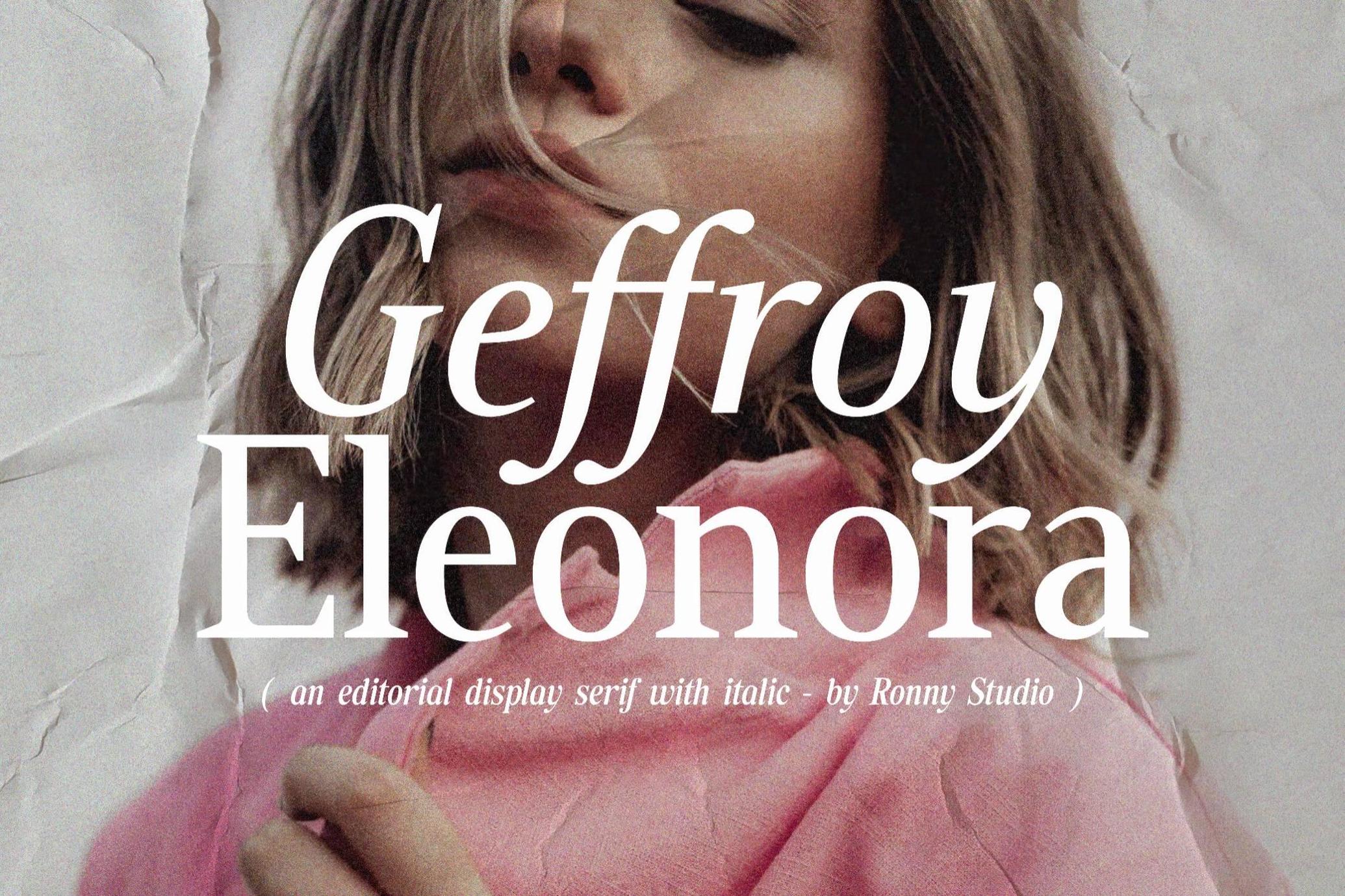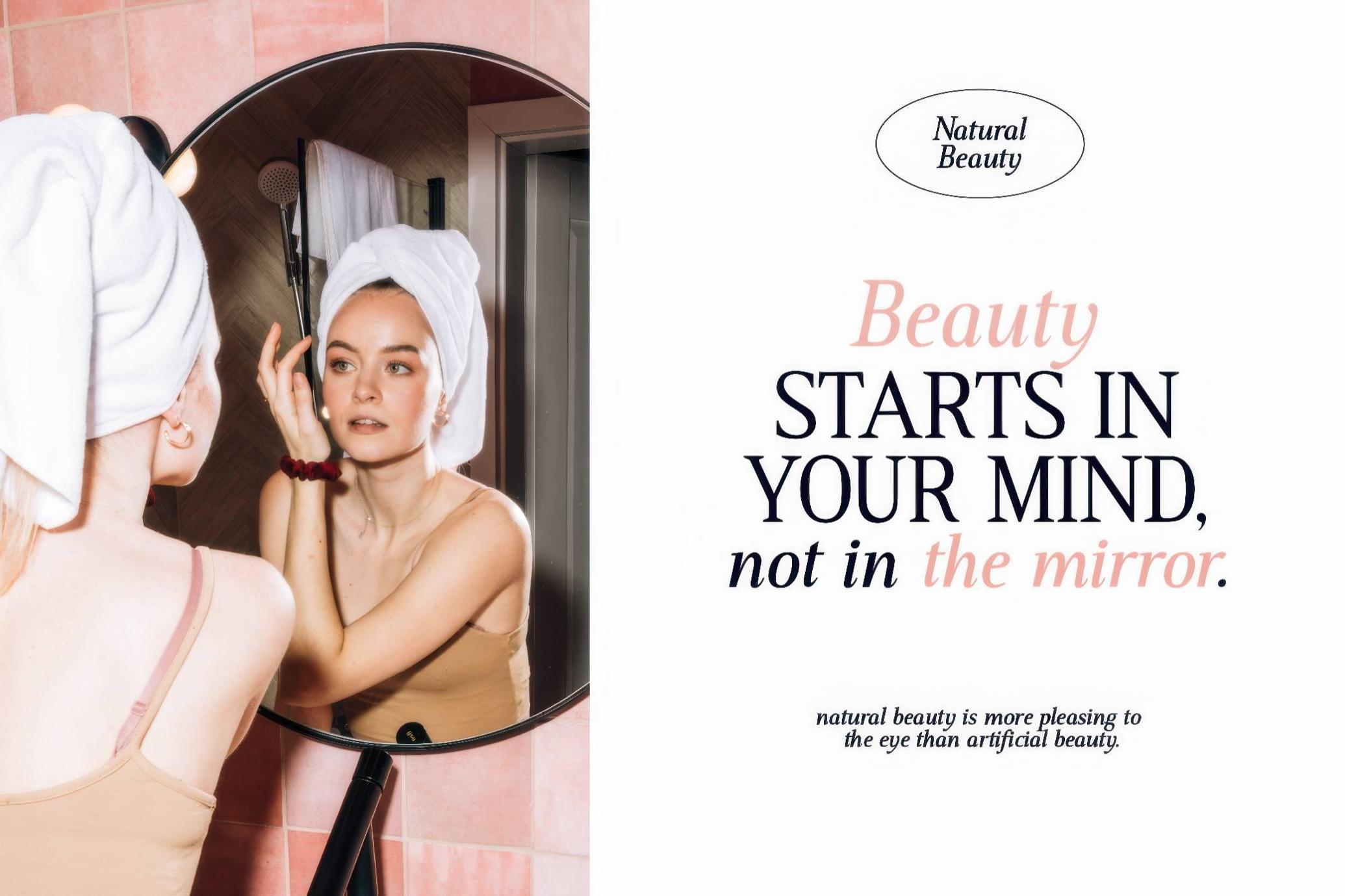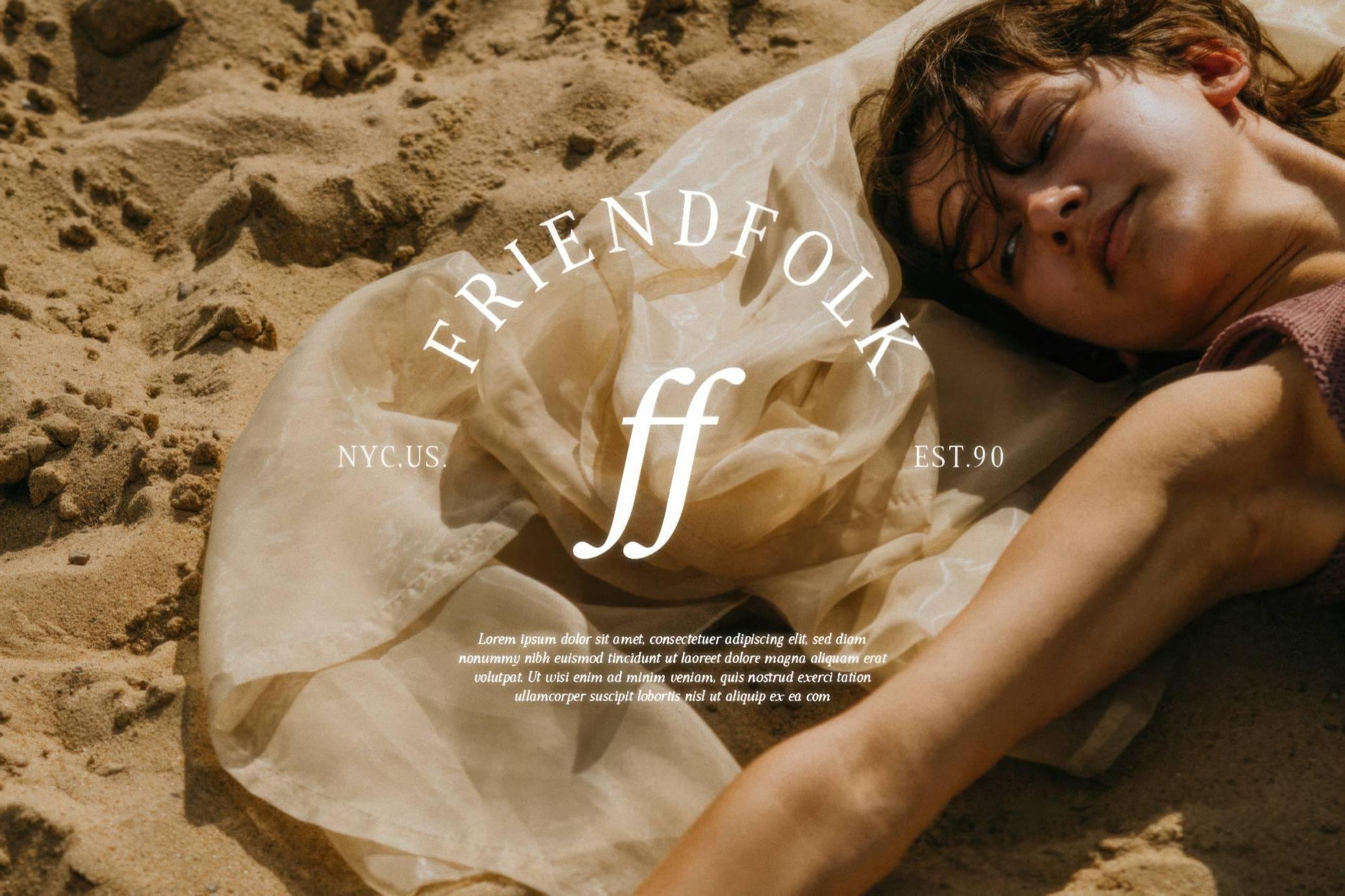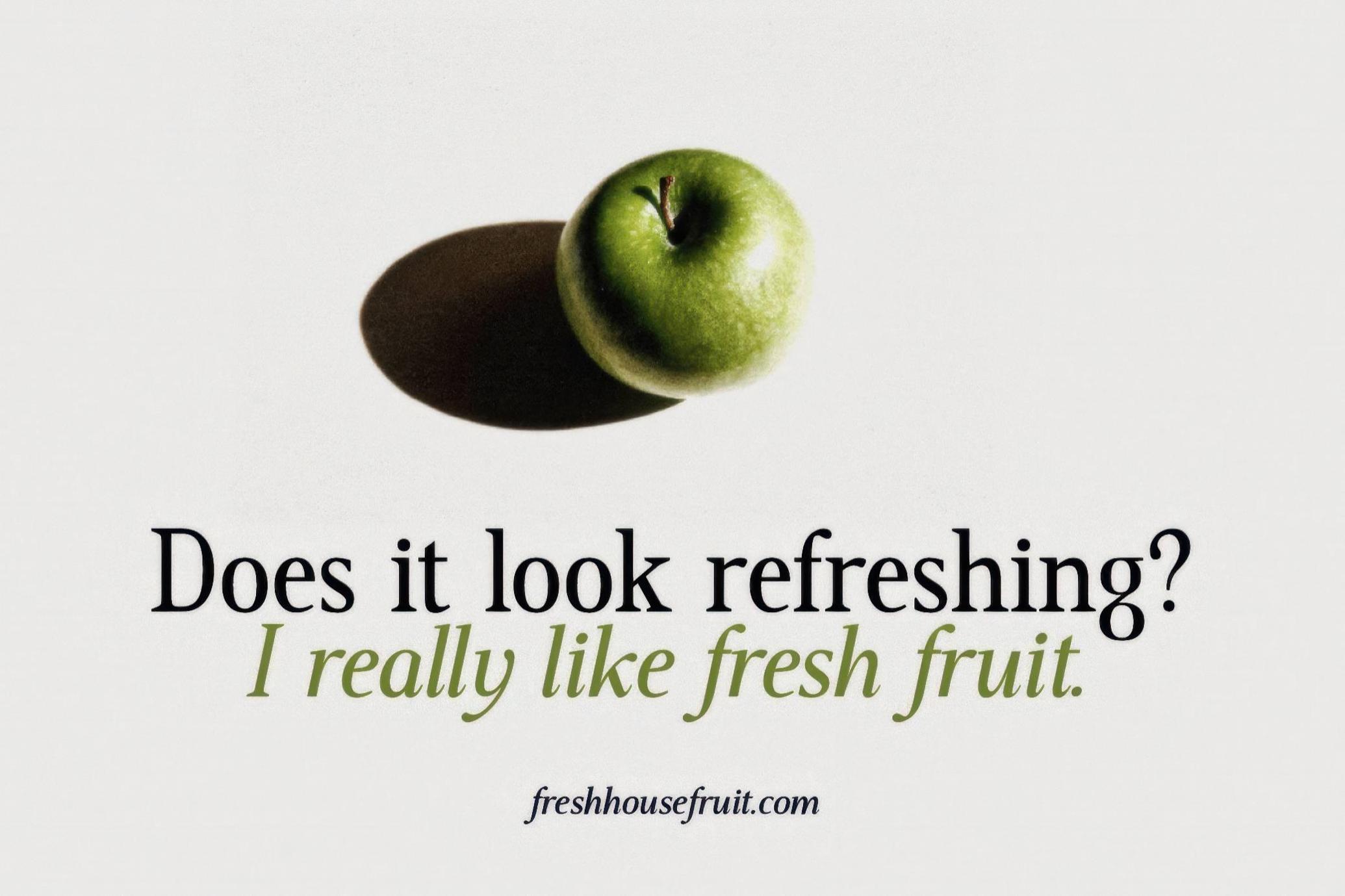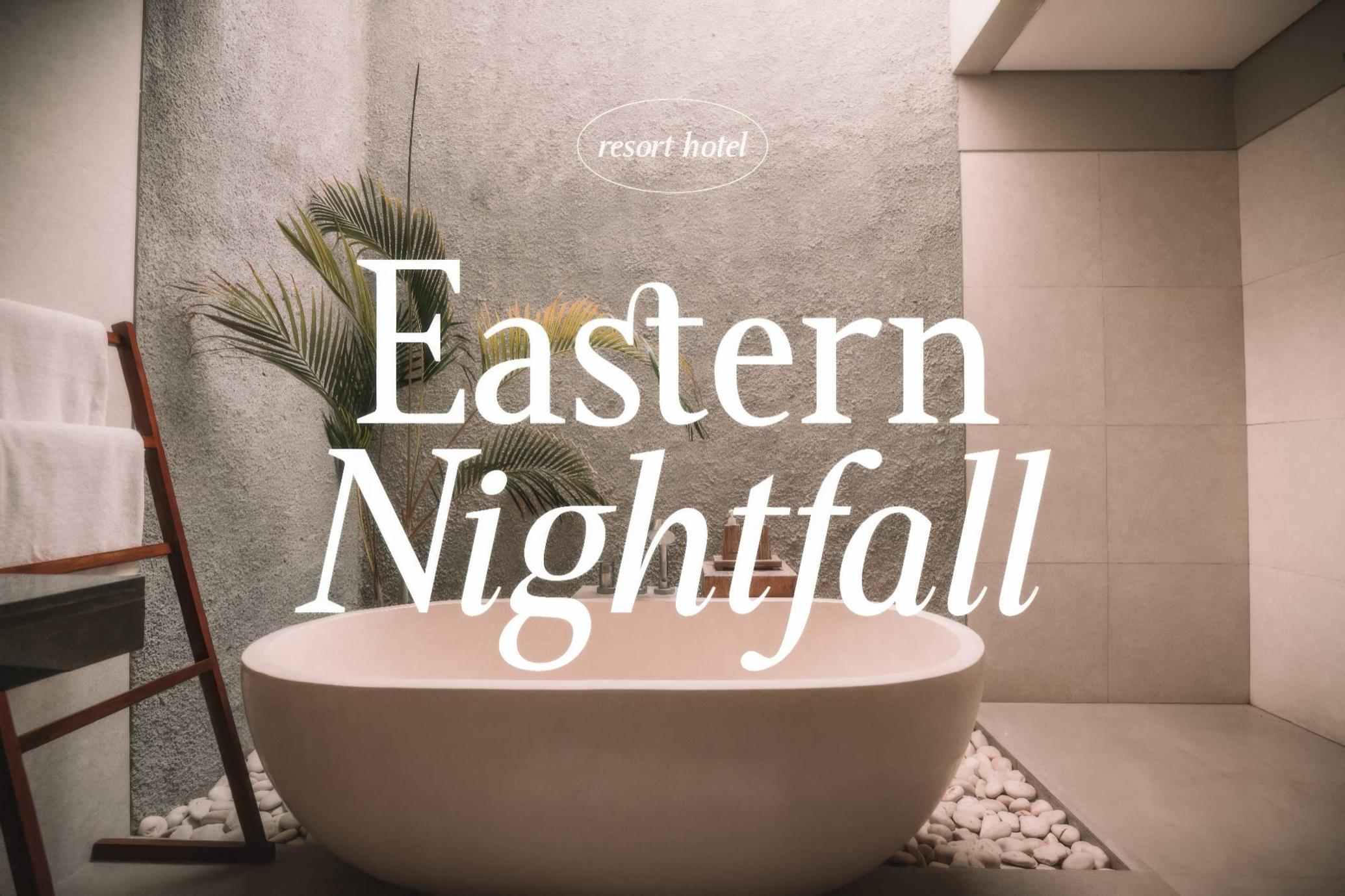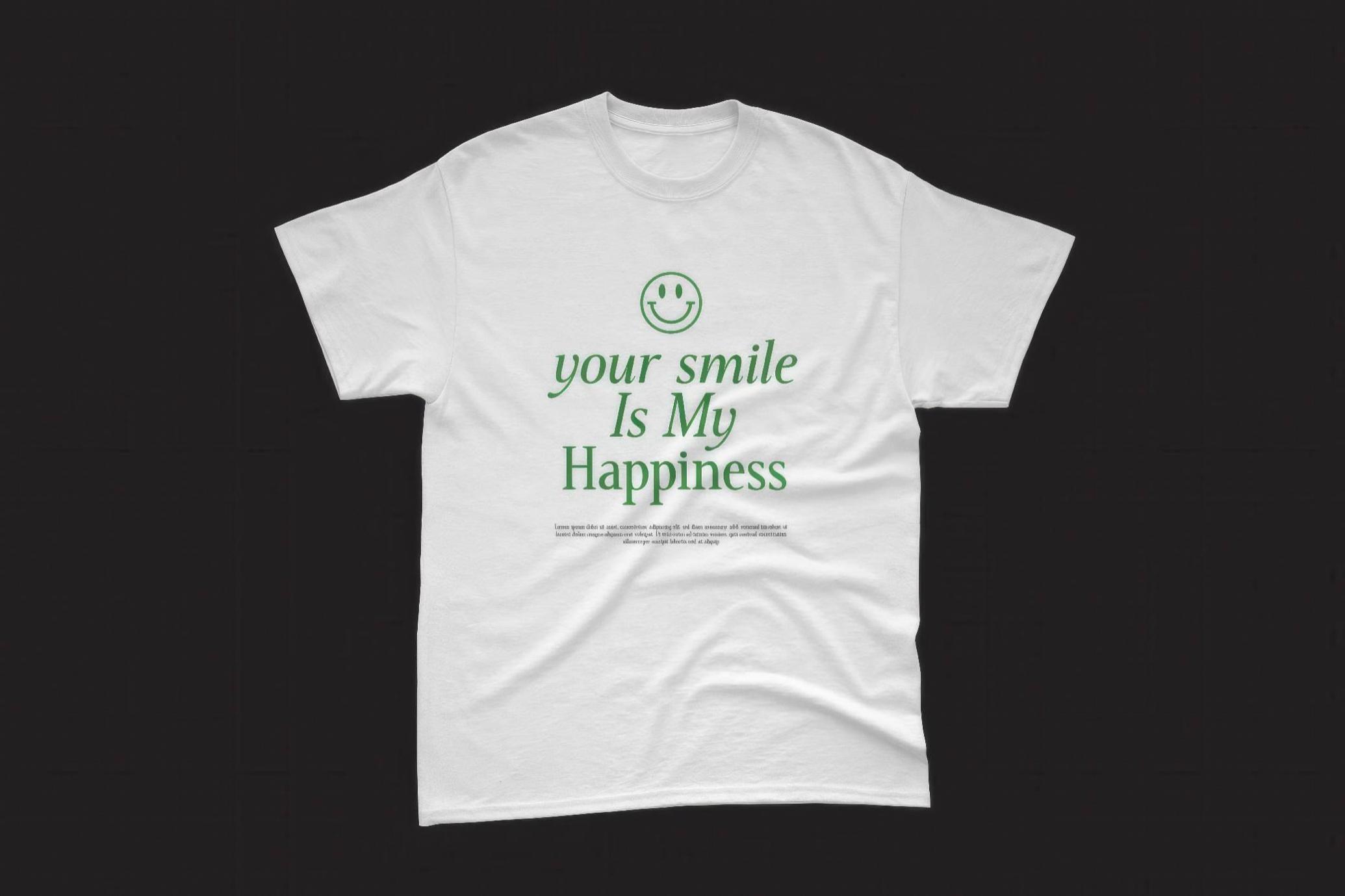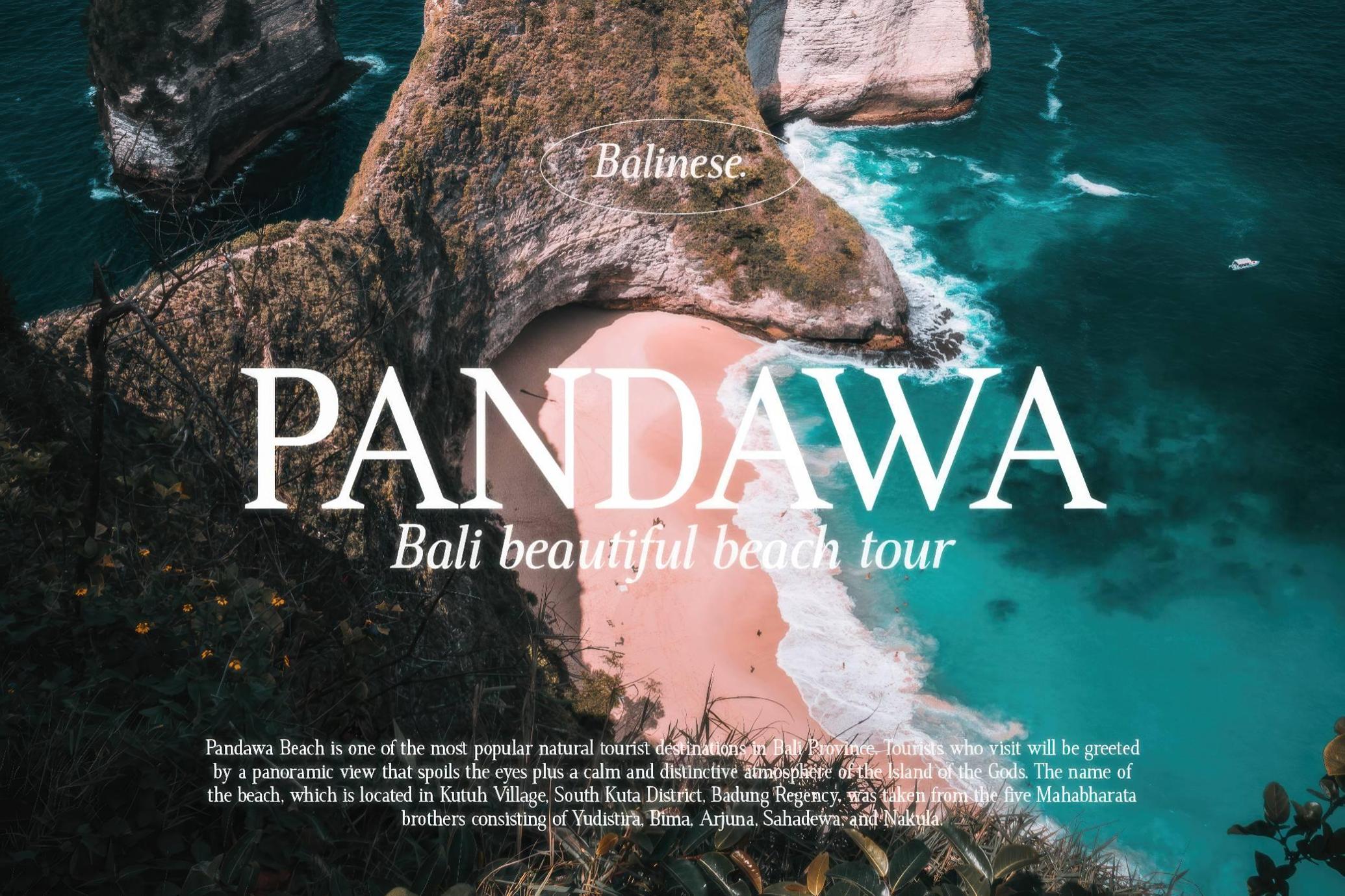
Geffroy Eleonora — Nostalgic Serif
Geffroy Eleonora Serif effortlessly channels the glossy elegance of 80’s editorial design. Think vintage Vogue covers, luxury ads, and the kind of sharp serif flair that turned heads then and still does now. With both Regular and Italic styles, this font gives you flexibility without losing its high-fashion attitude. Perfect for invitations, packaging, logos, magazine spreads, or beauty branding. The set of glyphs includes uppercase, lowercase, numbers, punctuation, ligatures, alternates, and full multilingual support.